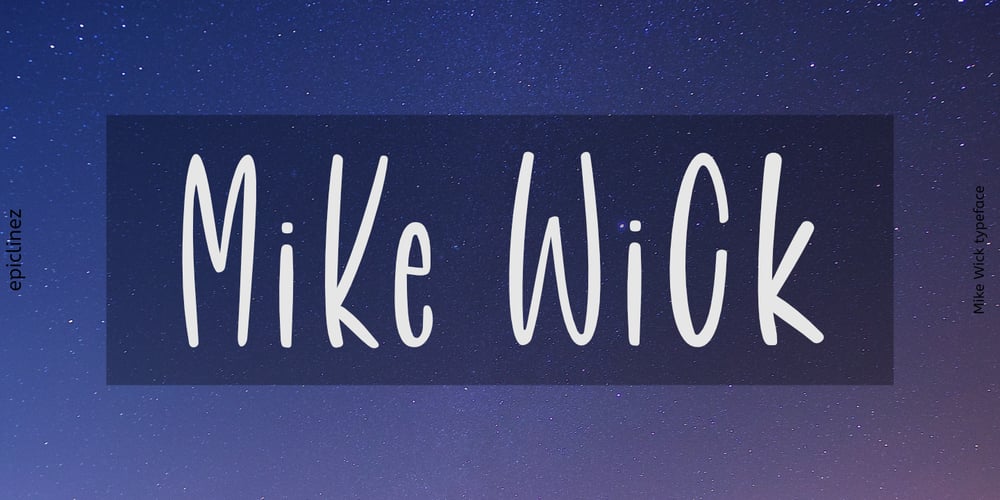
Mike Wick Font Family was designed by Aldy Sidik and published by Epiclinez. Mike Wick contains 1 styles and family package options. Mick Wick is a casual handwritten font. It’s readable and it has a playful feel. Get inspired by its simplistic charm and use it to brighten up any creative project